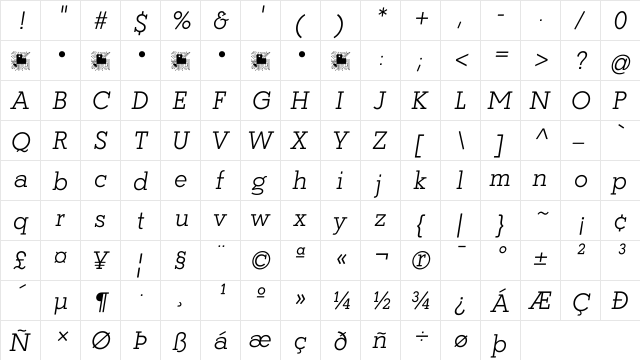
Coltan Gea Light Italic Font Preview
| Foundry | deFharo |
| Designer | Fernando Haro |
Design Context for Coltan Gea Light Typeface
Coltan Gea Light offers clean, dependable letterforms without strong stylistic allegiance, making it a practical choice for designers who need flexibility. The dynamic lean of this cut emphasises speed and emphasis in any layout. Its slender proportions lend an understated elegance to any composition.
Pro Tip: Try Coltan Gea Light for annotation and caption copy alongside an upright companion — the contrast in angle creates a dynamic but ordered typographic system.